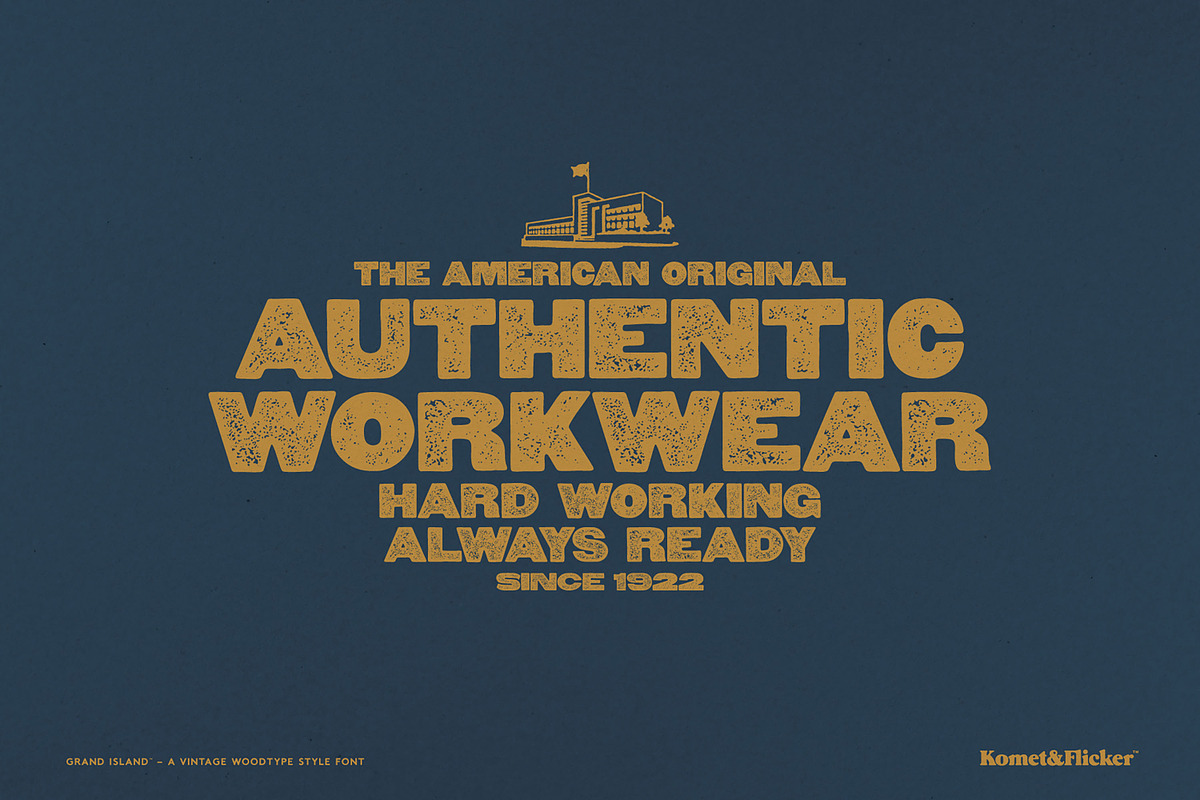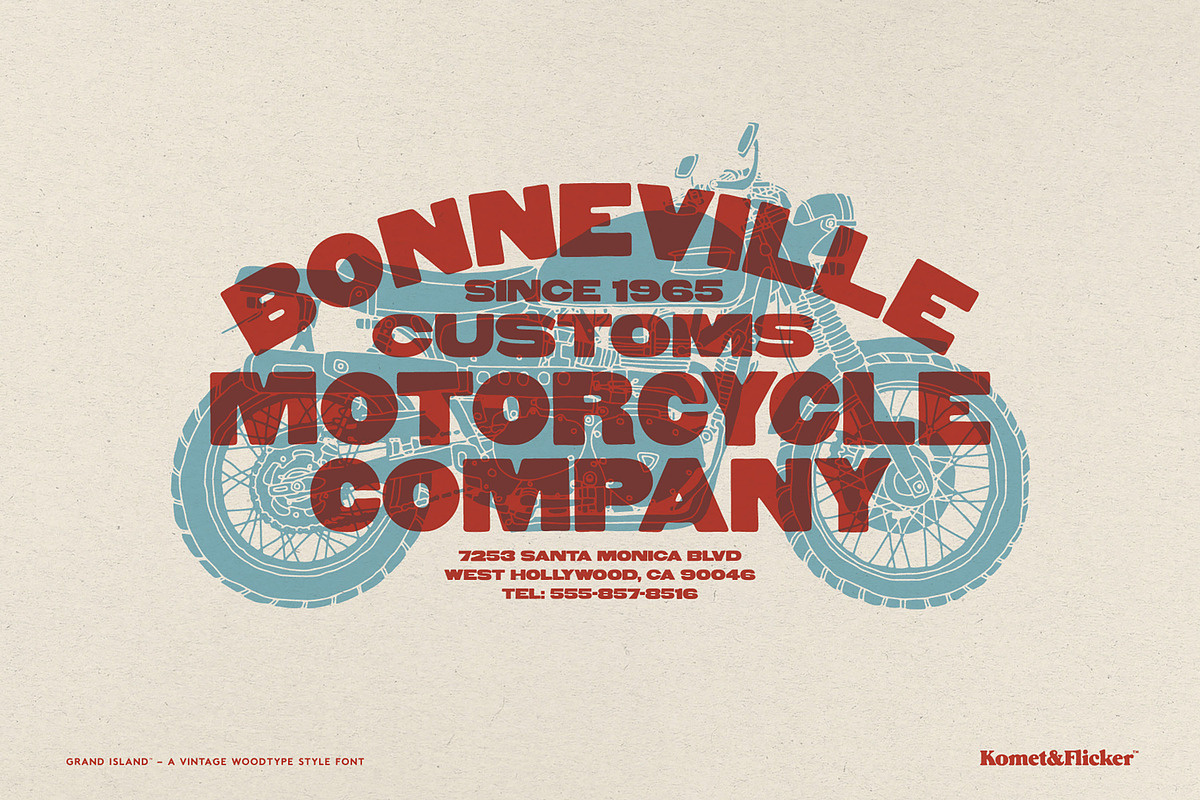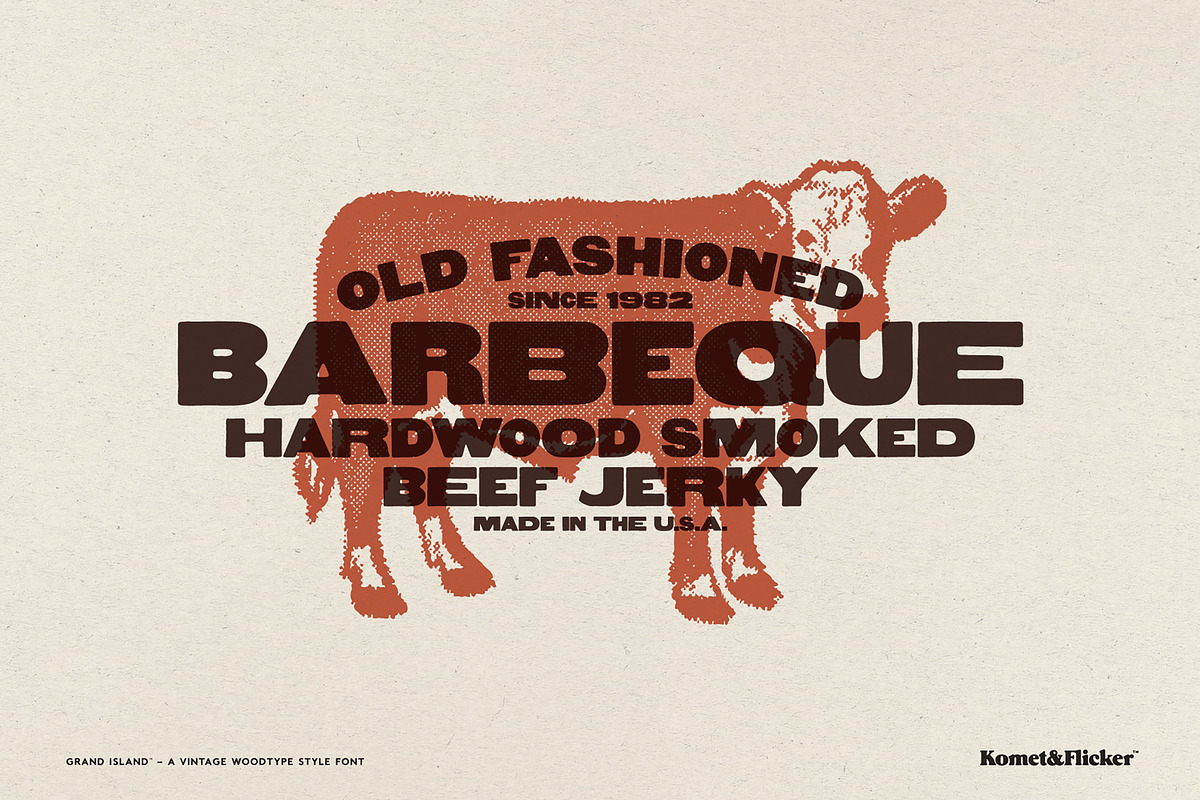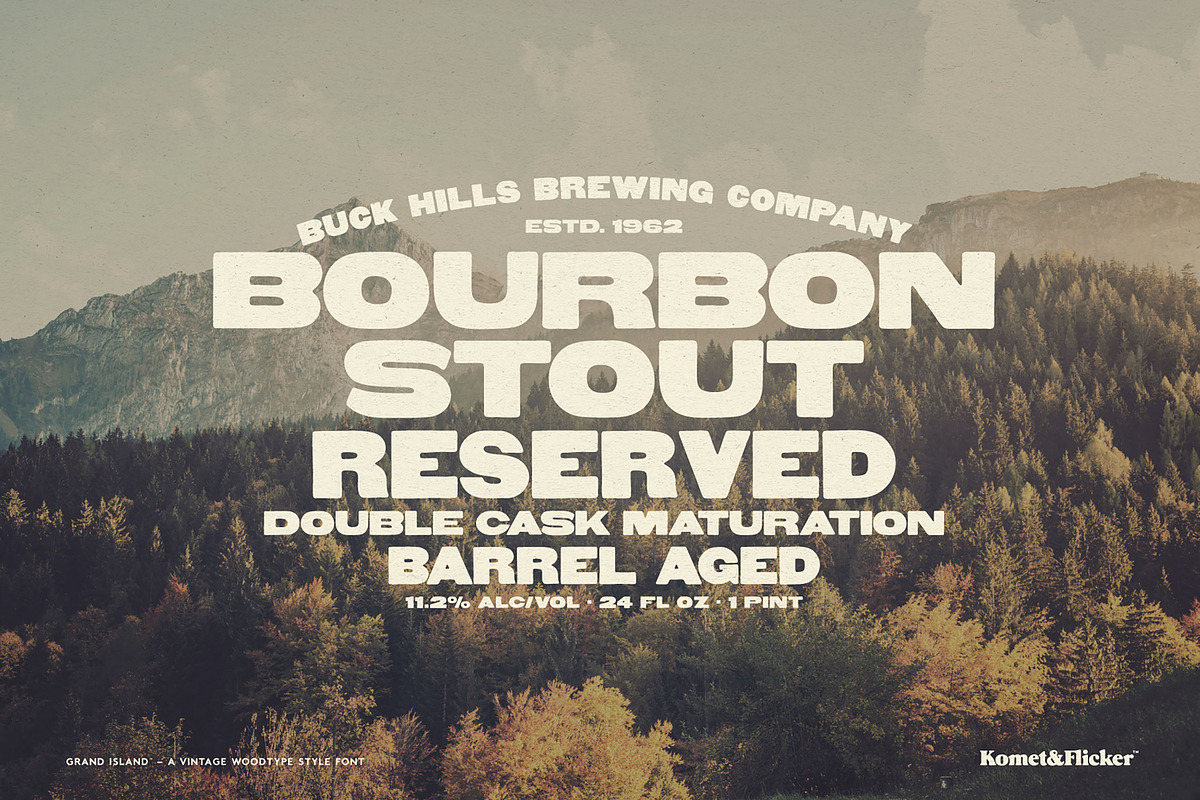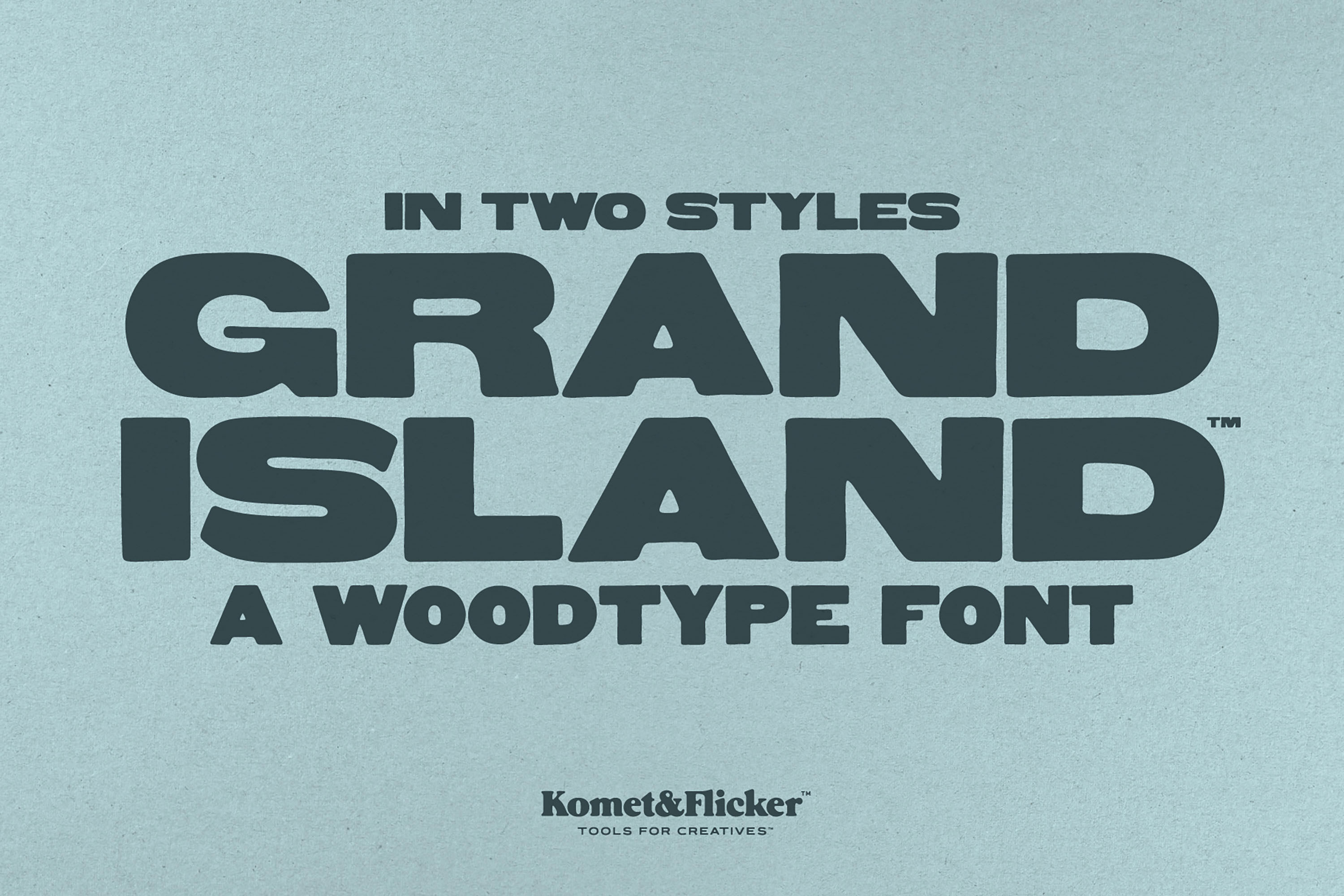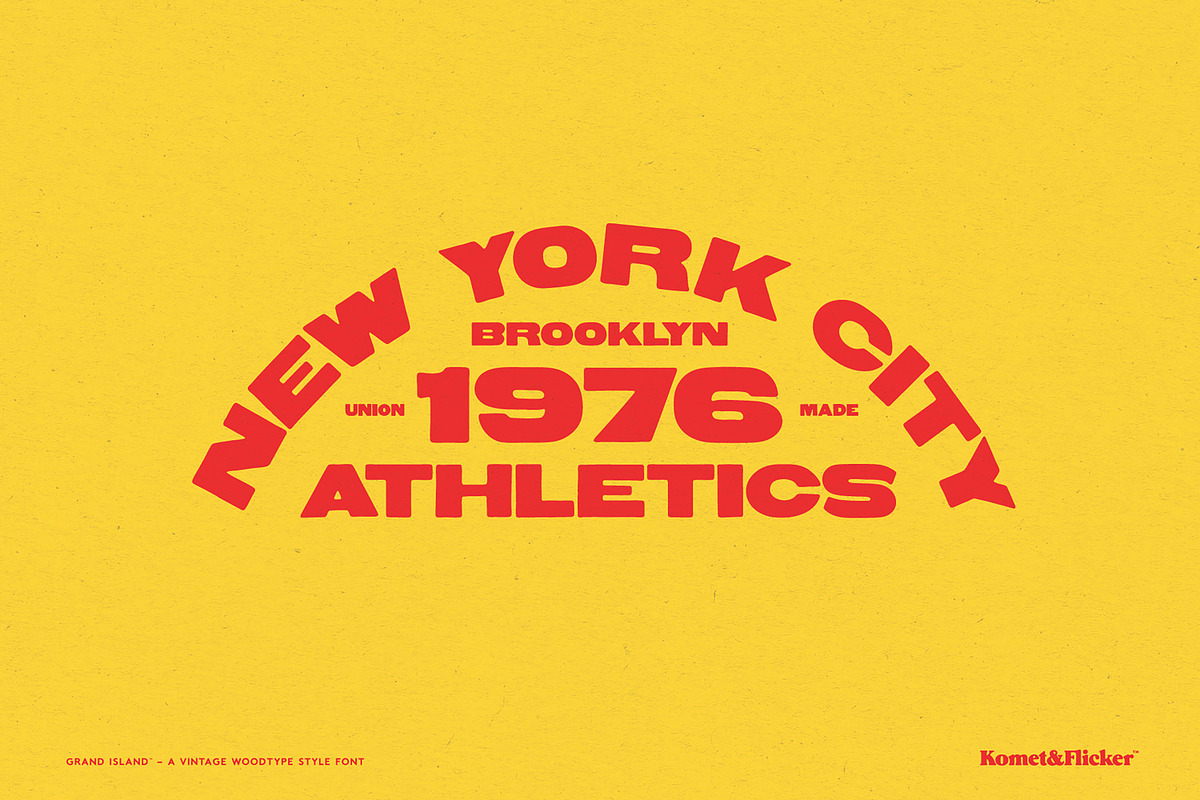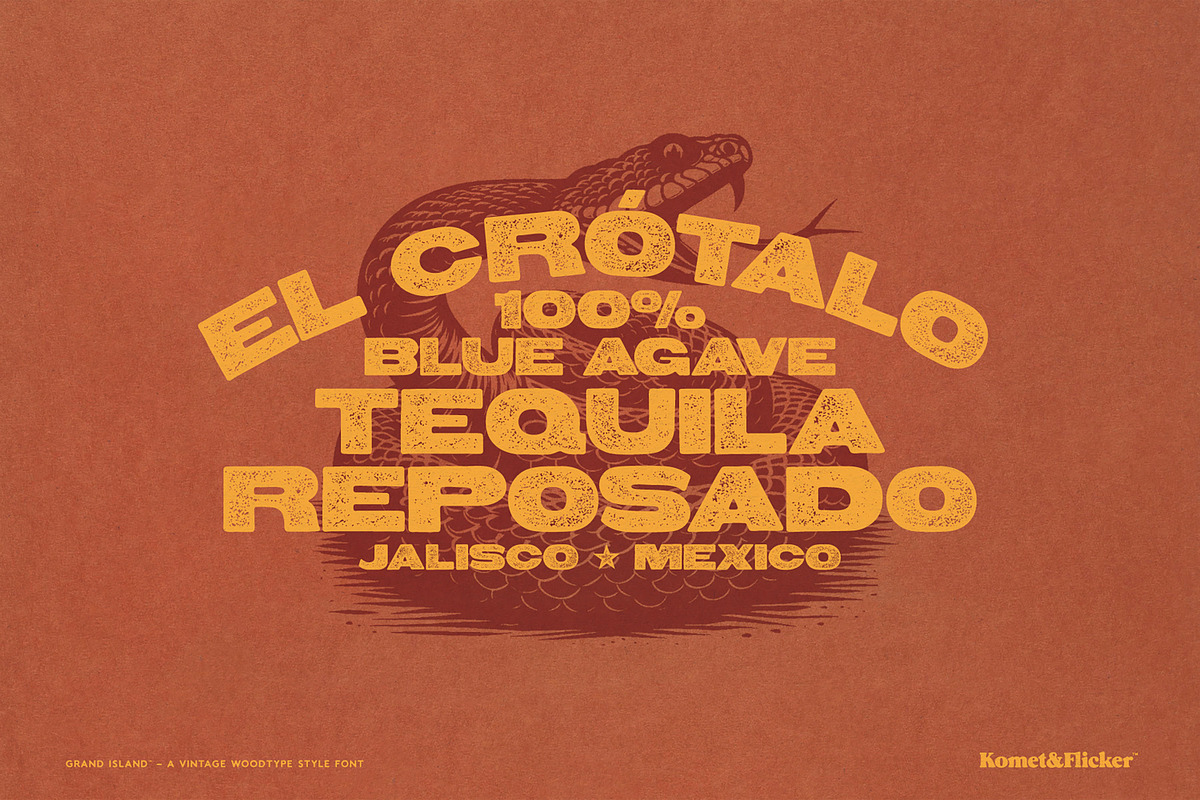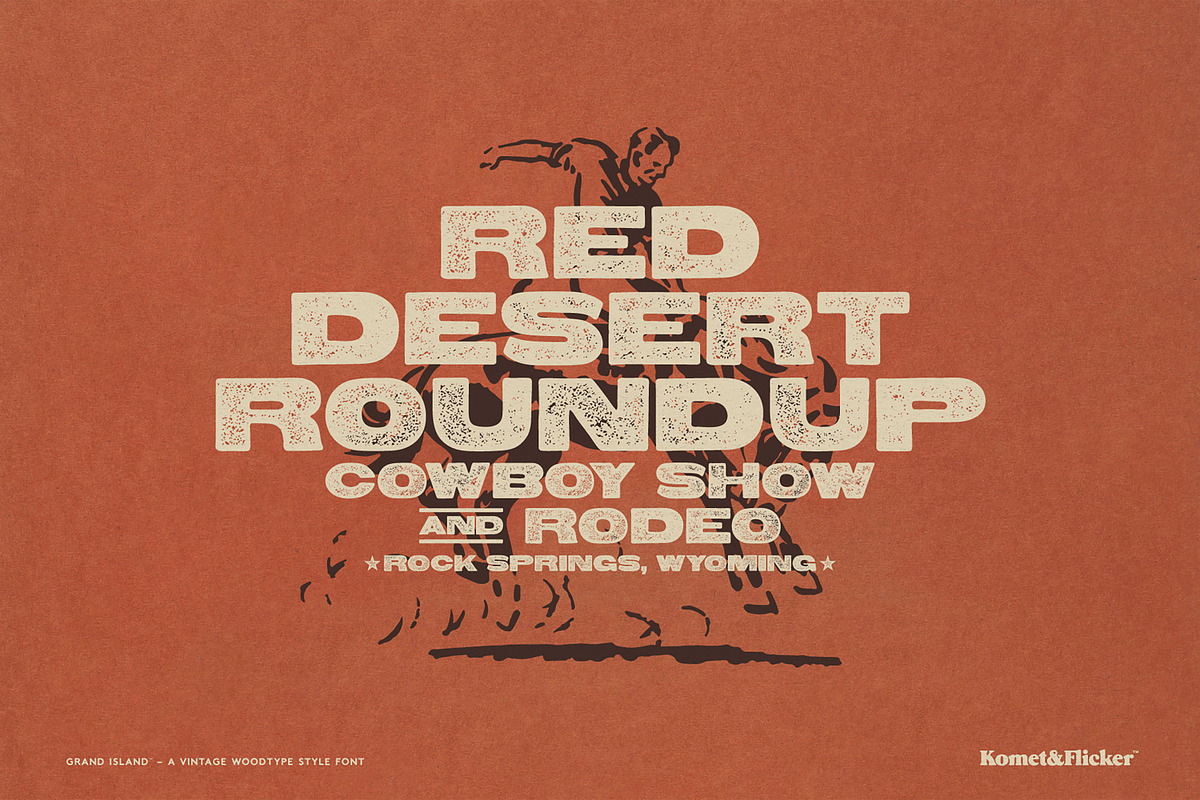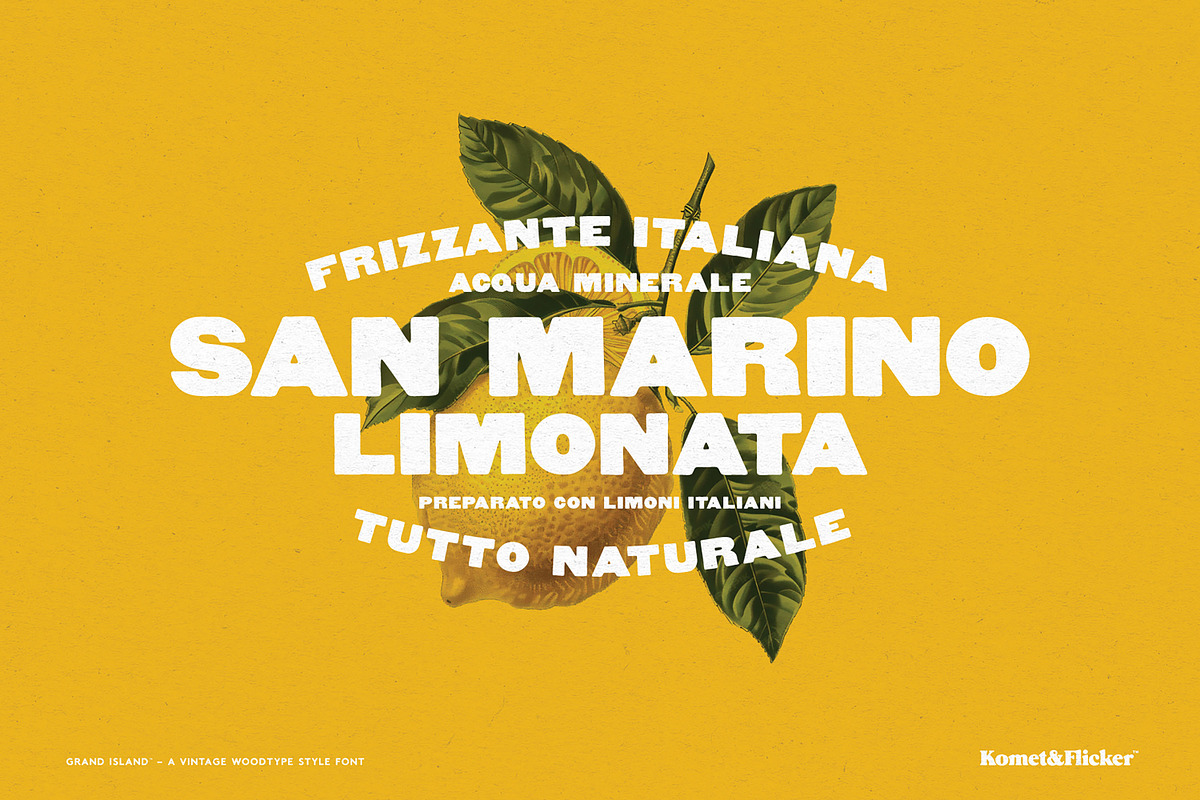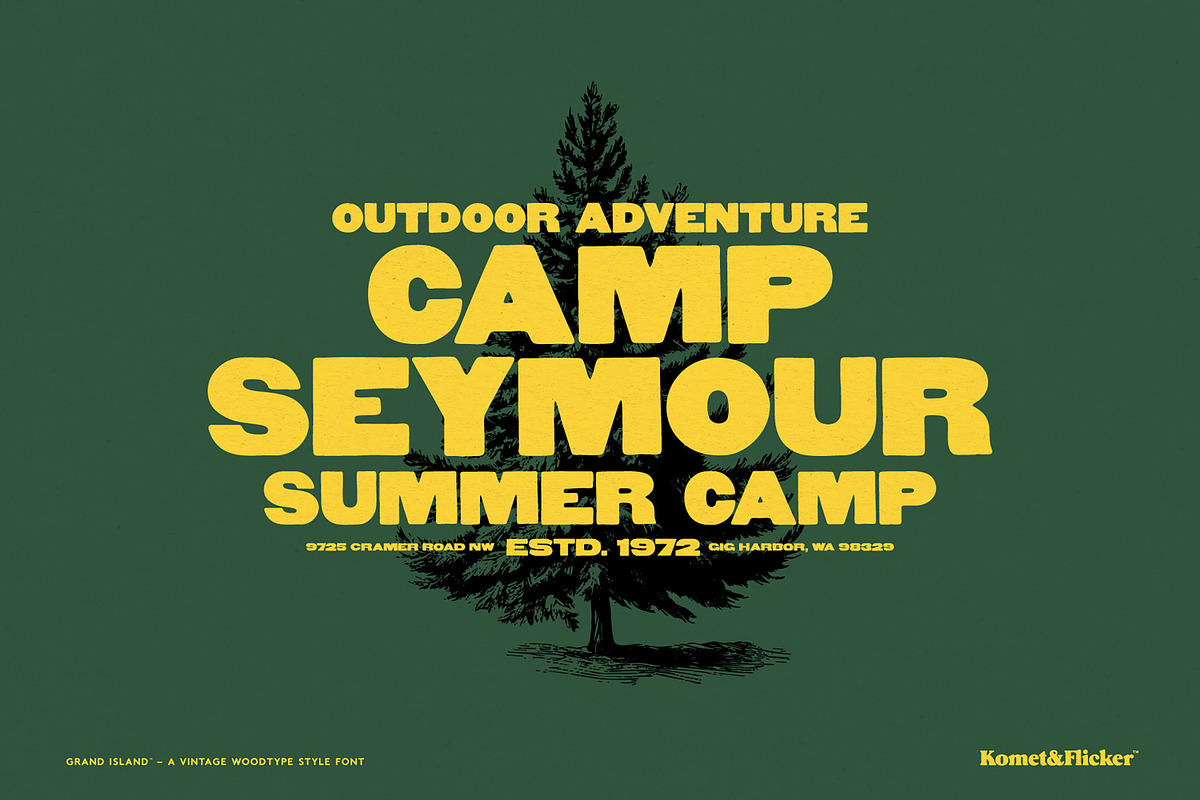
Grand Island - A Woodtype Font
Two letter styles in one font!
Bring bold character and timeless charm to your designs with Grand Island, a vintage-inspired font crafted with the spirit of classic wood type letterpress printing. Perfect for everything from posters and logos to packaging and signage, Grand Island captures the tactile beauty of antique hand-set type.
Plus with different glyphs for uppercase and lowercase letters, Grand Island delivers two styles in one font, letting you add contrast and personality depending on your design.
And to add even more flexibility and charm, this font includes a set of 11 custom connecting words (such as: and, the, of, with – in two styles. These pre-made connector words make it easy to create smooth, cohesive typography with a natural, flowing feel.
Whether you're going for cozy nostalgia or bold retro energy, Grand Island has you covered.
Full A-Z uppercase basic latin characters in two styles
Select European specific characters
Numbers, punctuation, and select symbols
Two styles of pre-made fractions
Set of 11 custom connecting word glyphs in two styles